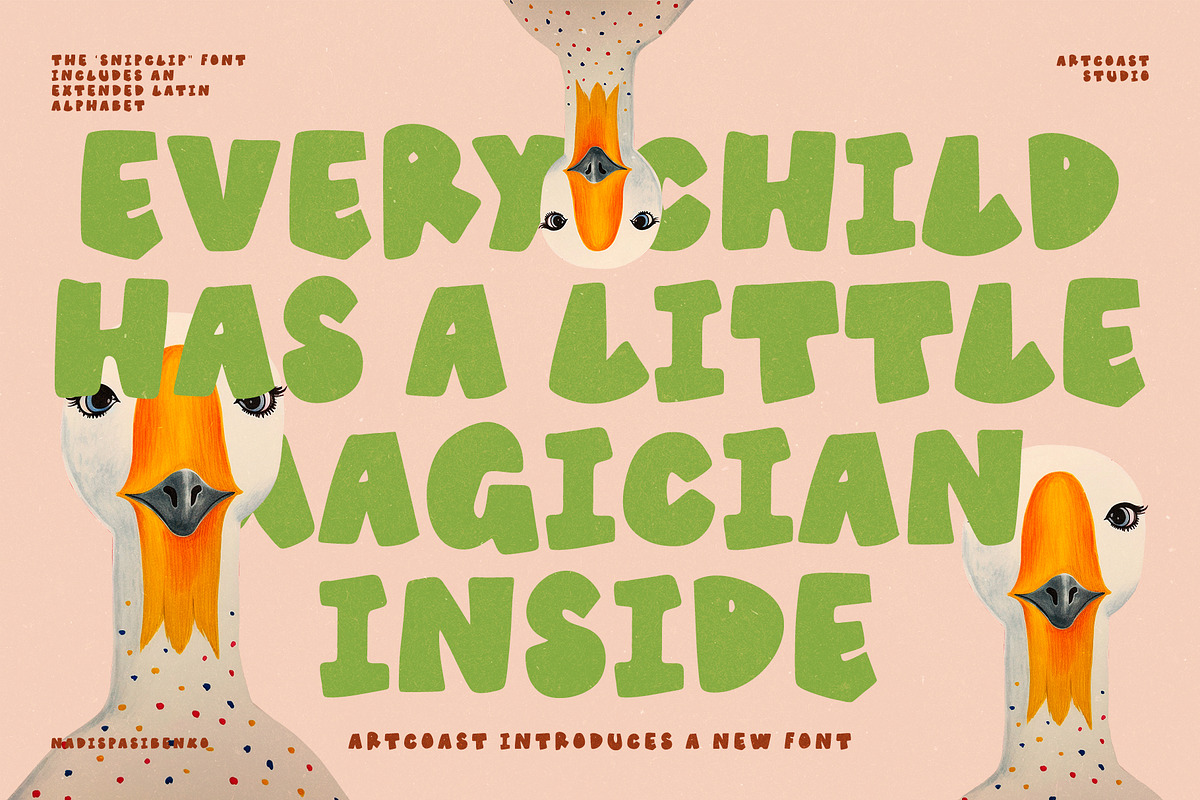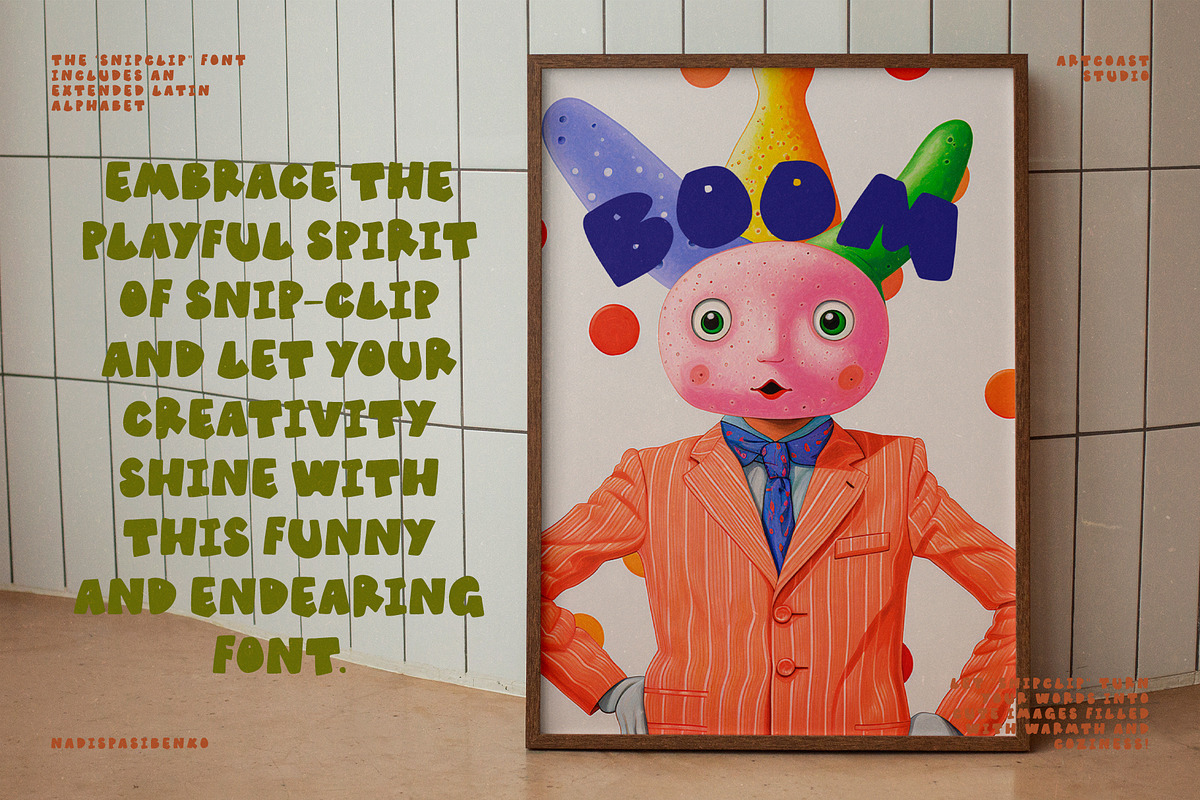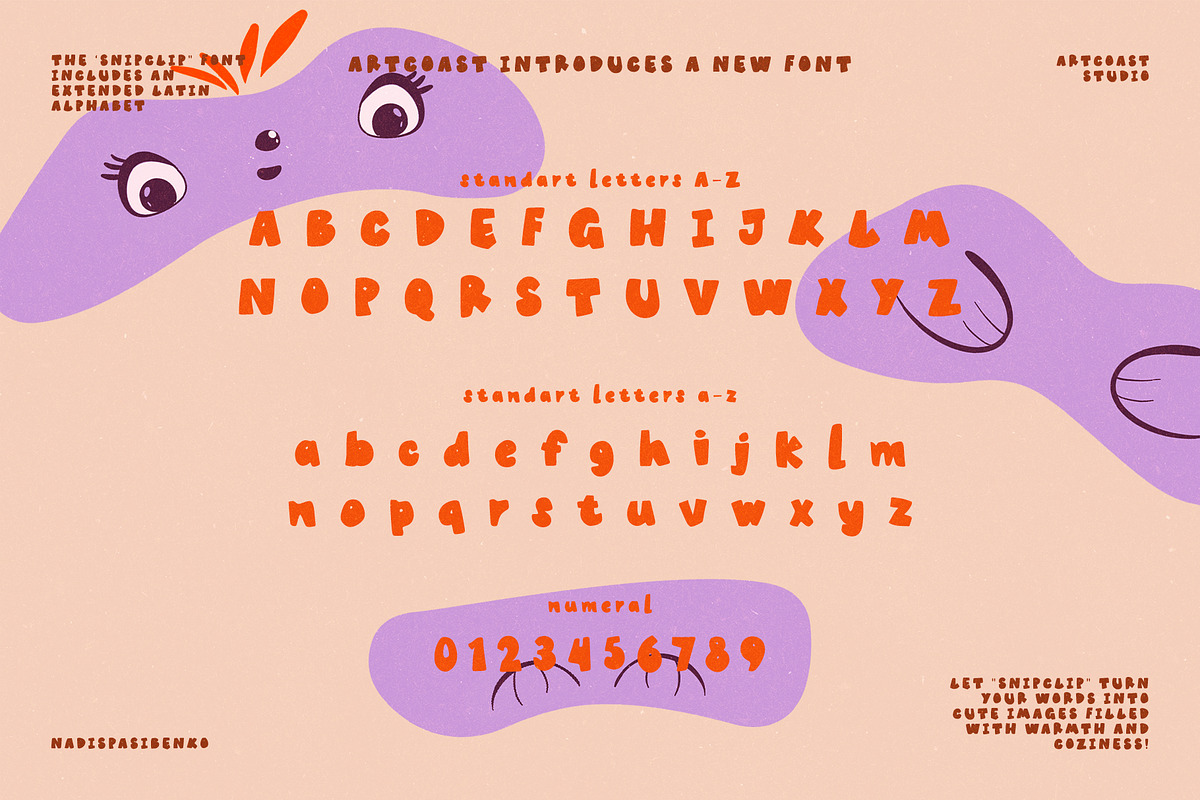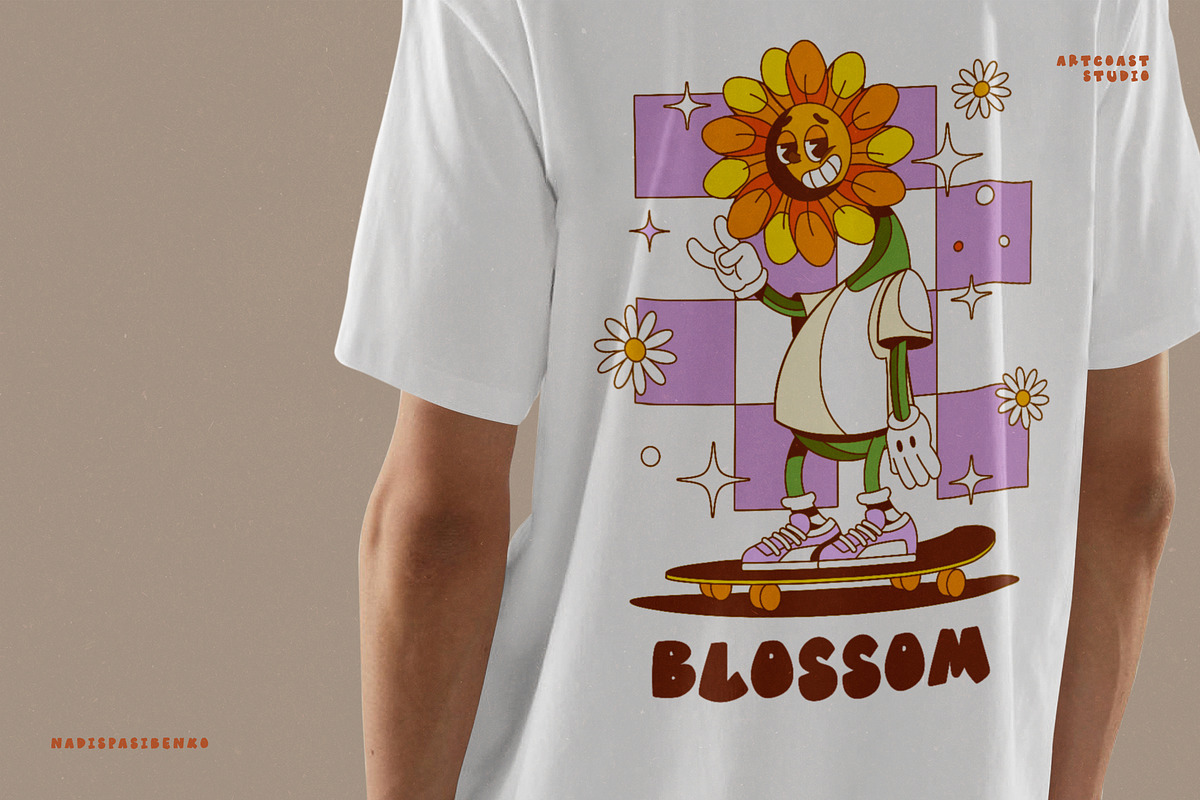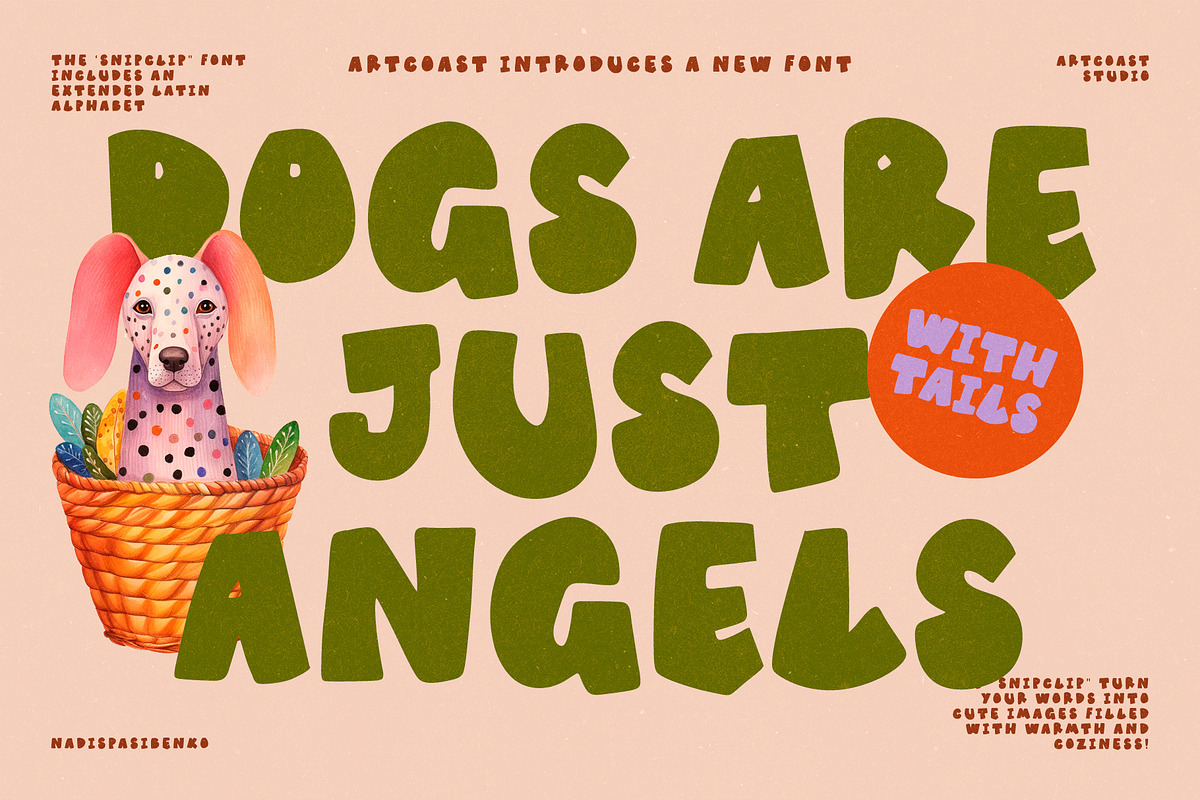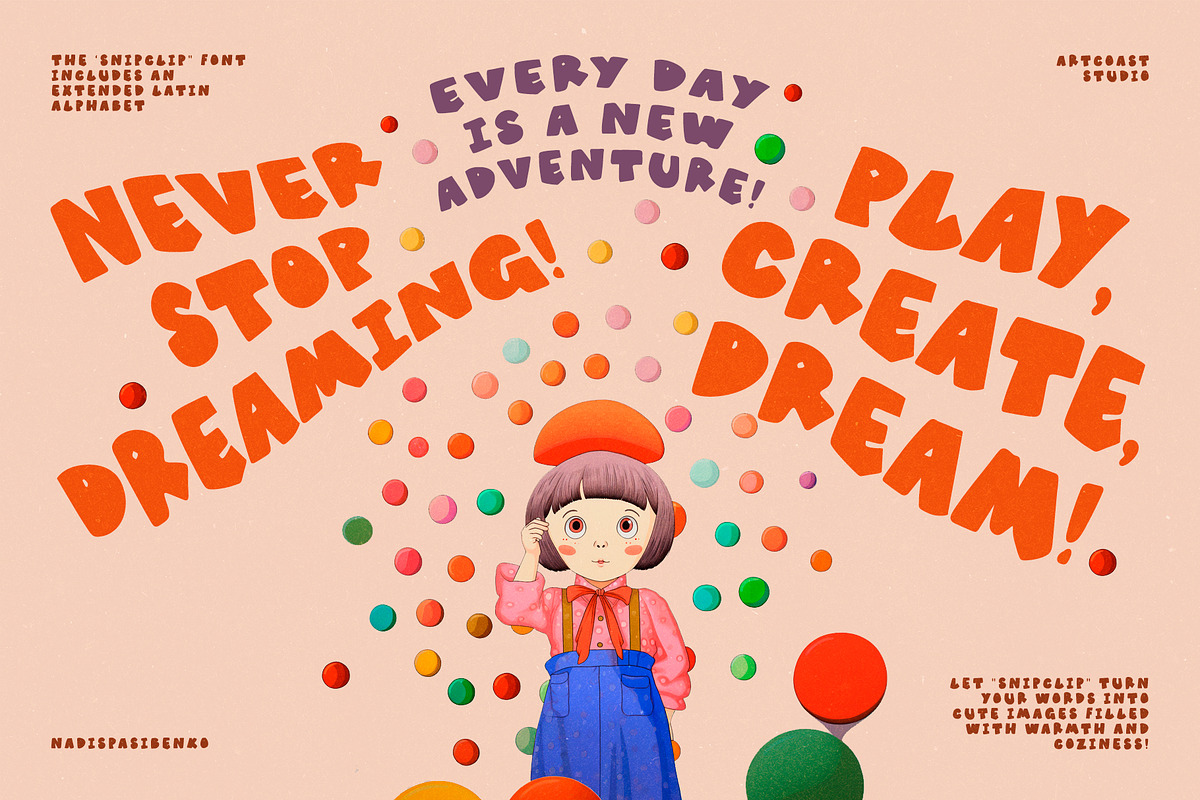
Snip Clip Funny Font
Introducing Snip-Clip, a cut out and playful font designed by Artcoast Studio. This charming typeface features an extended Latin alphabet, perfect for adding a playful touch to any project. Inspired by the fun and joy of childhood, Snip-Clip is ideal for creating cute images filled with warmth and coziness.
Whether you're designing for children's books, playful posters, or fun branding, Snip-Clip will turn your words into adorable visuals that capture the essence of childhood wonder. With its bold and quirky characters, this font brings a sense of joy and creativity to your designs.
Embrace the playful spirit of Snip-Clip and let your creativity shine with this funny and endearing font.
- The font includes extended Latin!
- With its bold and quirky characters, this font brings a sense of joy and creativity to your designs.